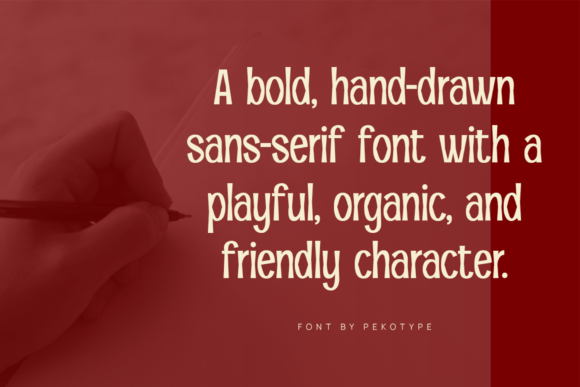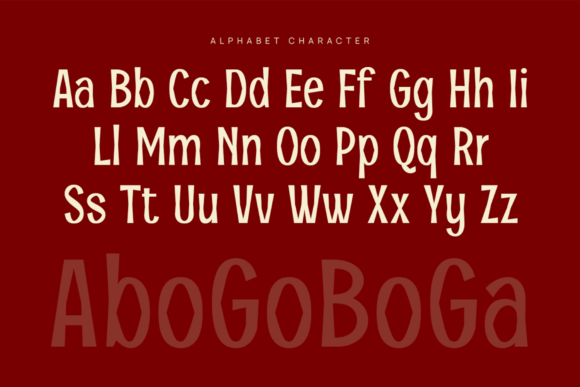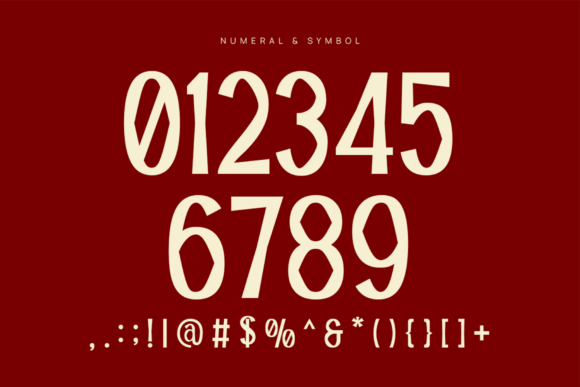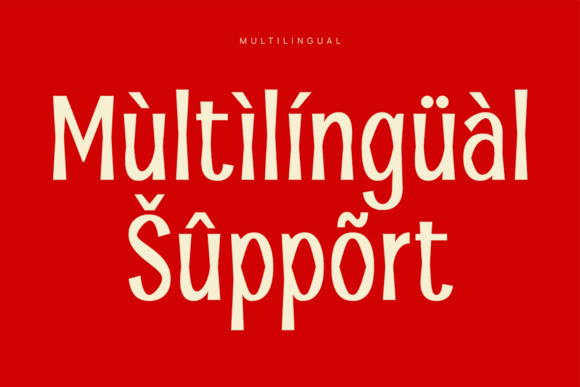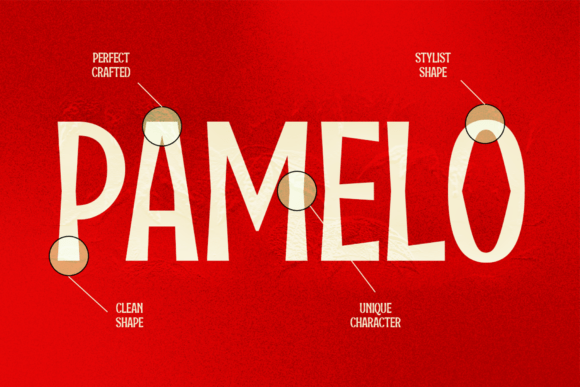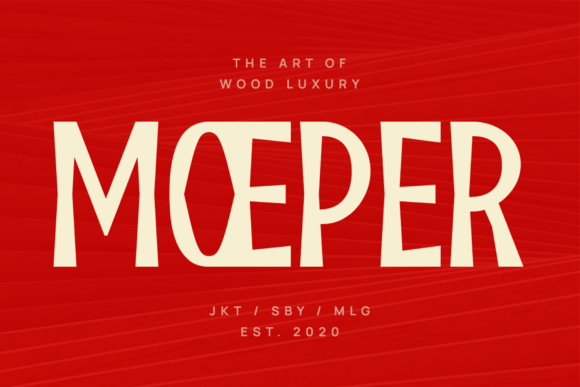
Introduction to Pamelo Font
**PAMELO** – Bold Hand-Drawn Sans Serif Font with Playful Character **PAMELO** is a bold hand-drawn sans serif typeface designed to bring a playful, organic, and friendly personality to your designs.
With its imperfect strokes, soft curves, and expressive letterforms, **PAMELO** feels warm, approachable, and full of character—perfect for brands that want to feel human and memorable Featuring uppercase and lowercase characters along with full multilingual support, **PAMELO** offers great flexibility for global creative projects.
Key Features of Pamelo Font